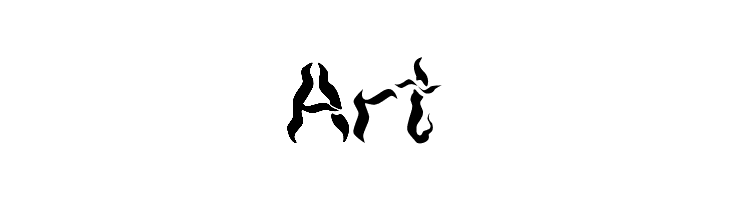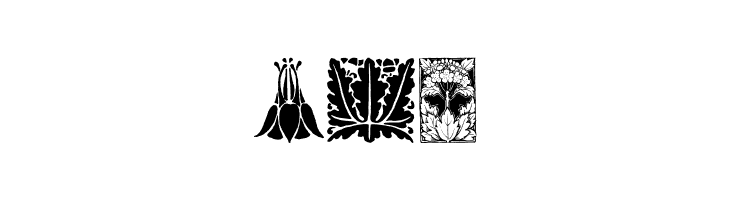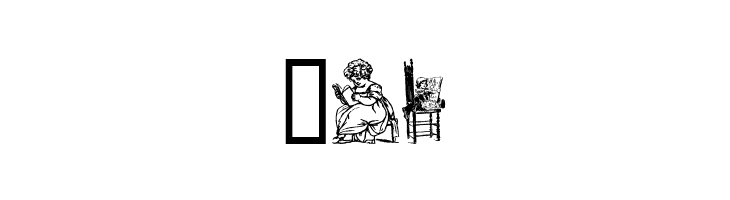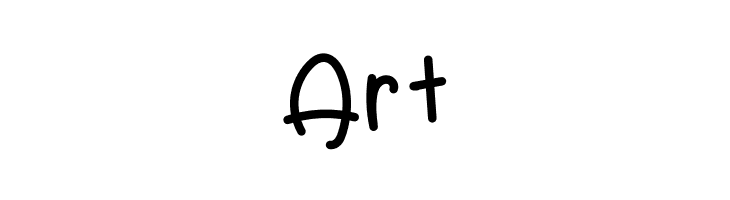
A decorative font with flame-like, artistic edges and a fluid, organic style.
A bold, modern font with thick strokes and a slightly condensed form.
A playful, bubbly font with thick, rounded shapes and a whimsical style.
An ornate, calligraphy-inspired font with elaborate flourishes and dramatic strokes.
A bold, gothic blackletter font with intricate detailing and historical flair.
Ornate floral illustration dingbat set with vintage flair.